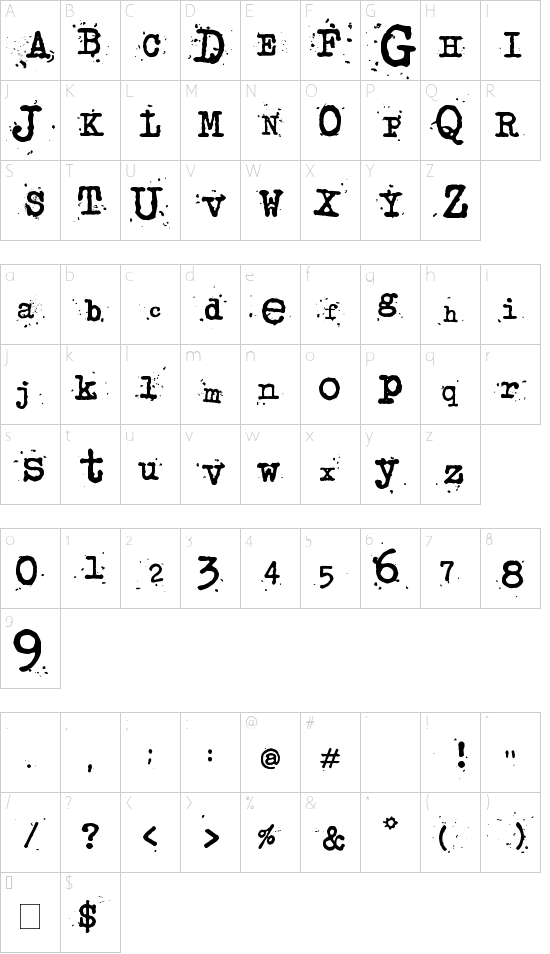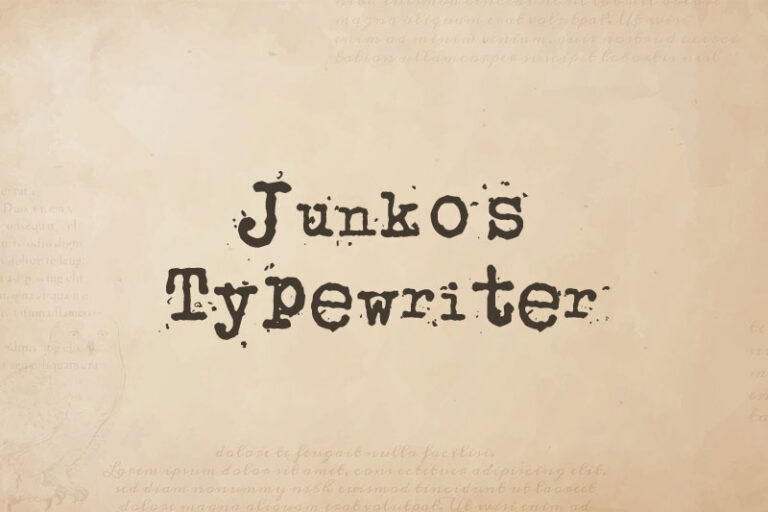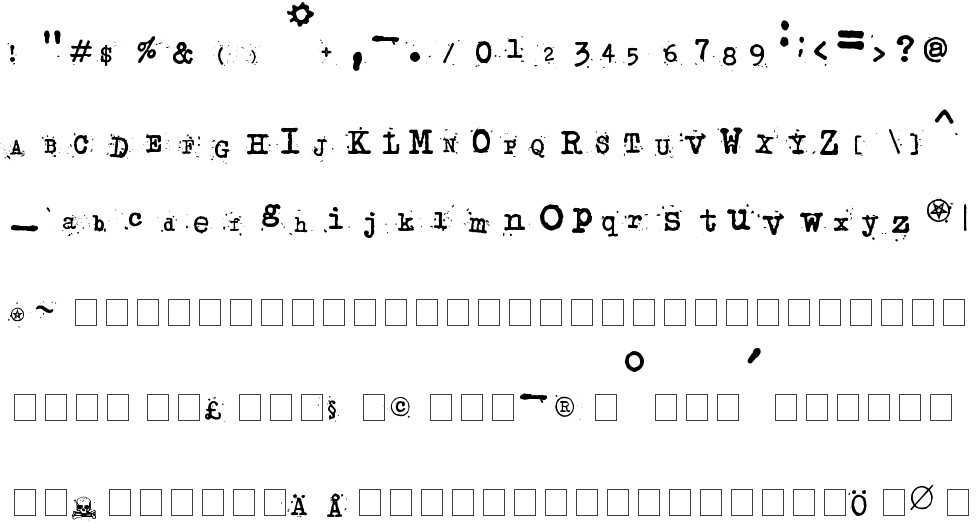
Junko's Typewriter Font . junko's typewriter font download is available free from fontget. junkos typewriter font is a fancy, typewriter font designed by juha korhonen. licensed for commercial and personal use. looking for junko's typewriter font designed by junkohanhero? Junko's typewriter is a fancy type font that can be used on any device such as pc, mac,. Junkos typewriter font is free for both personel and commercial usages. Download font free at fontriver. Click here to create a custom image with your own text. Junko's typewriter € by junkohanhero. junko's typewriter font | designed by junkohanhero | download junko's typewriter for windows and mac | category: Download free for commercial use. junko's typewriter font. 272,141 downloads (2 yesterday) 6 comments 100% free.
Junko's typewriter is a fancy type font that can be used on any device such as pc, mac,. Click here to create a custom image with your own text. licensed for commercial and personal use. junko's typewriter font. junko's typewriter font | designed by junkohanhero | download junko's typewriter for windows and mac | category: junkos typewriter font is a fancy, typewriter font designed by juha korhonen. Download font free at fontriver. Junko's typewriter € by junkohanhero. junko's typewriter font download is available free from fontget. Download free for commercial use.
Junko's Typewriter Font junkos typewriter font is a fancy, typewriter font designed by juha korhonen. looking for junko's typewriter font designed by junkohanhero? Junkos typewriter font is free for both personel and commercial usages. Download free for commercial use. Download font free at fontriver. junko's typewriter font download is available free from fontget. Junko's typewriter is a fancy type font that can be used on any device such as pc, mac,. junkos typewriter font is a fancy, typewriter font designed by juha korhonen. Junko's typewriter € by junkohanhero. 272,141 downloads (2 yesterday) 6 comments 100% free. licensed for commercial and personal use. Click here to create a custom image with your own text. junko's typewriter font | designed by junkohanhero | download junko's typewriter for windows and mac | category: